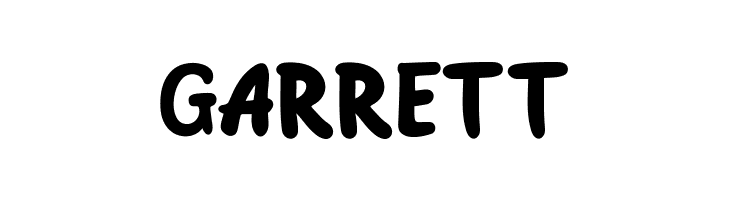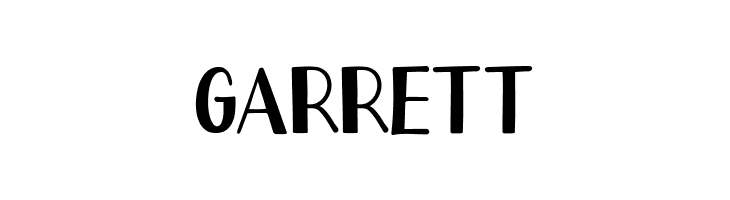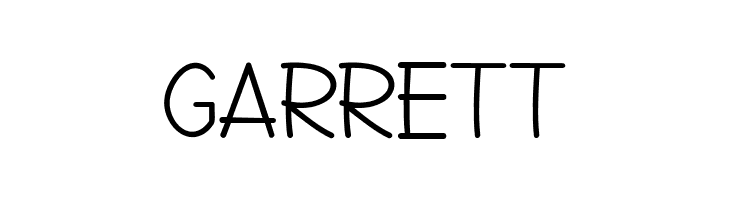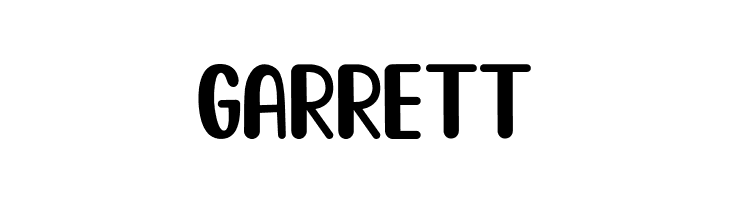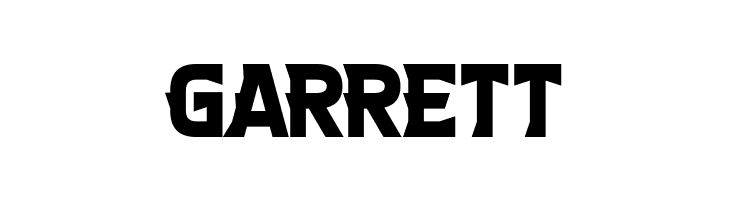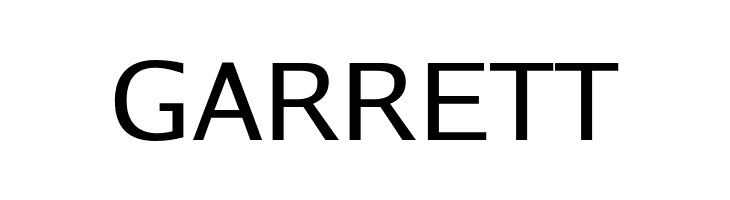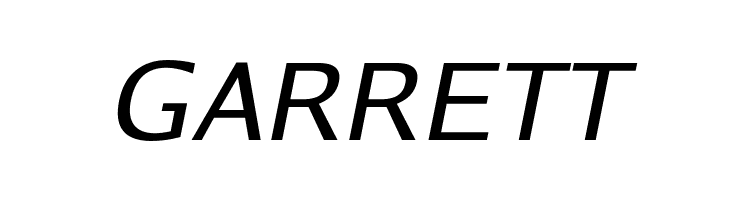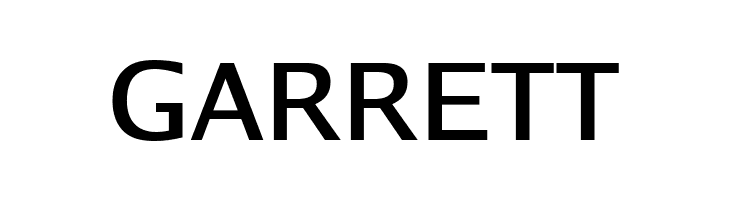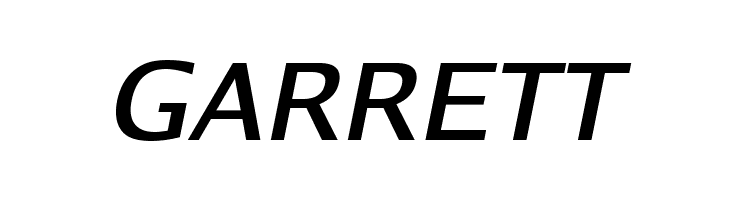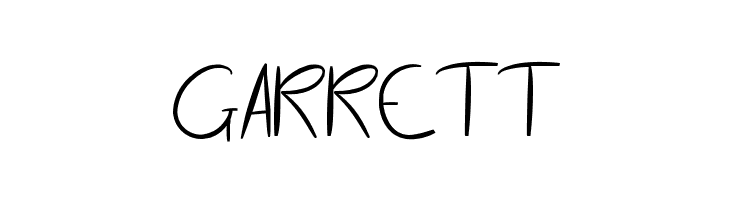
A playful, handwritten font with a casual and informal style.
A bold, hand-drawn font with a chaotic, artistic style.
A bold, geometric font with strong, angular strokes.
A bold, brush-style font with dynamic and energetic strokes.
A futuristic, angular font with a bold, geometric design.
A playful, bold font with rounded edges and a friendly style.
A sleek, modern italic font with excellent readability and dynamic style.
A bold, modern font with clean lines and a geometric influence.
A modern, geometric sans-serif font with uniform stroke width.
A modern, italic typeface with clean lines and balanced proportions.
A playful handwritten font with smooth, rounded edges and a casual style.
A playful, bold font with rounded, bubbly characters.
A dynamic and fluid script font with elegant curves and a cohesive style.
A dynamic, cursive font with a flowing, handwritten style.
A playful, bold font with rounded edges and a friendly style.
A modern sans-serif font with clean, geometric letterforms.
A playful, handwritten-style font with slanted characters and consistent stroke thickness.
A playful, energetic script font with a bold, handwritten style.
A modern, geometric font with clean lines and consistent stroke width.
A rugged, distressed font with a wild, untamed aesthetic.
A bold, playful font with chunky, rounded characters.
A bold, hand-drawn font with a playful and energetic style.
A bold, textured font with a distressed, vintage appearance.
A playful, hand-drawn outline font with a whimsical and artistic style.
A bold, dramatic blackletter font with intricate detailing and historical elegance.
A decorative monogram font with ornate, floral frames around elegant, italicized letters.
Decorative script font with a whimsical, hand-drawn style.
A whimsical collection of autumn-themed dingbats featuring turkeys, pumpkins, and other harvest symbols.